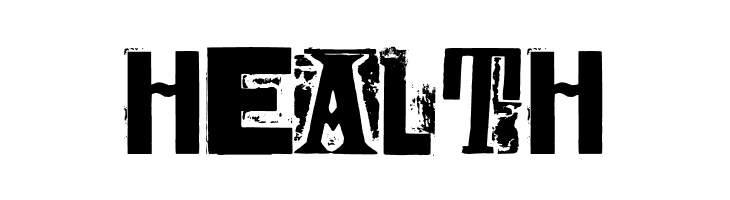
Body Grotesque Large Trial Bold Font
A bold, modern sans-serif font with geometric lines and a minimalistic style.
SW Crawl Body Font
A bold, modern sans-serif font with a clean and cohesive design.
Ge Body Font
A bold, modern sans-serif font with geometric lines and consistent spacing.
Body Grotesque Fit Trial Bold Font
A bold, modern font with clean lines and strong visual impact.
Body Grotesque Trial Bold Font
A bold, modern sans-serif font with clean lines and a strong presence.
Body charms Regular Font
A playful, hand-drawn font with tall, narrow characters.
LC Body Font
A bold, artistic font with unique silhouette elements and a modern flair.
Body&Soul personal Use Font
A bold, dynamic script font with a modern and energetic style.
BODY HUNTER Bold Font
A bold, distressed font with a grunge aesthetic and strong visual impact.
Body charms slap Regular Font
A playful, hand-drawn font with tall, narrow characters and a whimsical style.
Soul Meets Body Font
A modern, geometric font with rounded characters and consistent stroke width.
Body Piercing & Chains Font
A bold, edgy font inspired by body piercings and chains.
Bulara Thin Border Body Font
A modern, thin-lined font with a minimalist and elegant design.
Body Grotesque Slim Bold Font
A bold, modern sans-serif font with a clean and cohesive design.
Isle Body PERSONAL USE Bold Font
A bold, robust font with strong strokes and a modern yet timeless style.
Body Swipers Rotalic Font
A bold, italicized font with a distressed, grunge texture.
Rustproof Body Font
A bold, geometric font with a futuristic and strong design.
Bodybag Font
A bold, dripping font perfect for horror-themed designs.
bodypump 1 Font
A bold, playful font with exaggerated curves and a whimsical, retro feel.
BodyPiercing&Chains Font